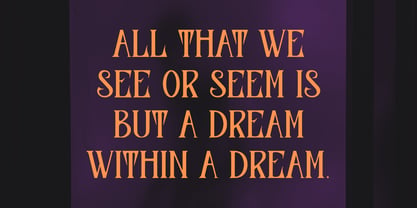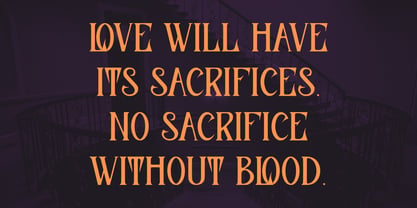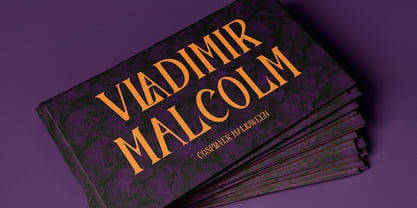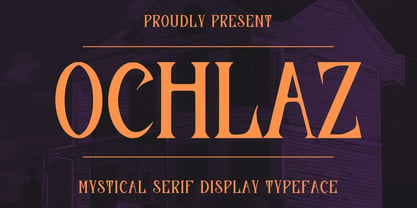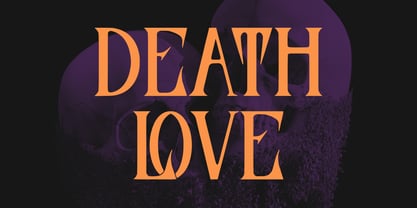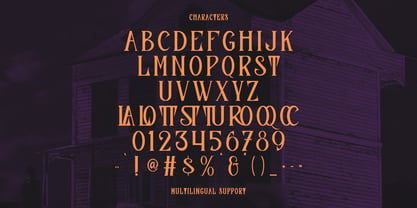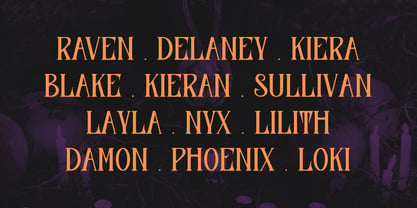
MC Ochlaz
by Maulana Creative
The MC Ochlaz Font Family was designed by Gilang Maulana and published by Maulana Creative. MC Ochlaz contains 1 styles. More about this family
Unleash the spirit of the dark and the beautiful with Ochlaz, a sophisticated serif display typeface. Ochlaz captures the essence of classic elegance blended with a haunting, mysterious vibe, making it perfect for designs that aim to intrigue and captivate. Features that Enchant: - Distinctive Serifs: Bold, dramatic serifs and high contrast strokes give the font an undeniable presence, demanding attention in any layout. - Mysterious Vibe: The elegant yet slightly sinister curves and forms are ideal for themes related to horror, gothic, mystery, dark fantasy, and occult. - Versatile Display Use: Tailored for impactful headlines, titles, branding, and large-scale typography. It shines in movie posters, book covers, album art, merchandise, and high-end event promotions. - Full Character Set: Includes all uppercase letters, numerals, punctuation, and a selection of unique alternates/ligatures to add an extra layer of mystique and customization to your designs. - Multilingual Support: Reach a global audience with support for various languages. Perfect For: - Horror/Thriller Movie Posters - Gothic & Dark Fantasy Book Covers - Halloween Invitations & Branding - Vintage & Victorian-era Designs (with a modern twist) - Luxury & High-end Branding with a dark aesthetic
Designers: Gilang Maulana
Foundry: Maulana Creative